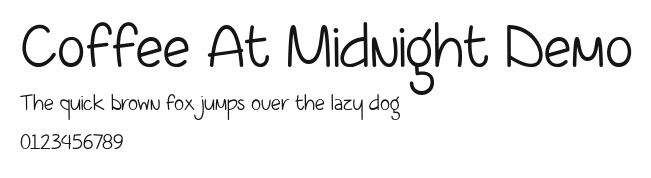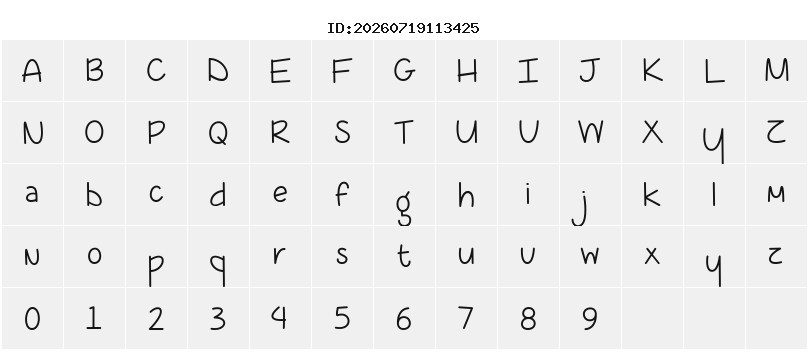
• Font Name: Coffee At Midnight Demo
• Designer: Misti's Fonts
About Coffee At Midnight Demo.ttf
Coffee At Midnight Demo.ttf is a modern, elegant sans-serif font designed for ultimate readability and visual harmony. Perfect for branding, headlines, web design, and print materials.